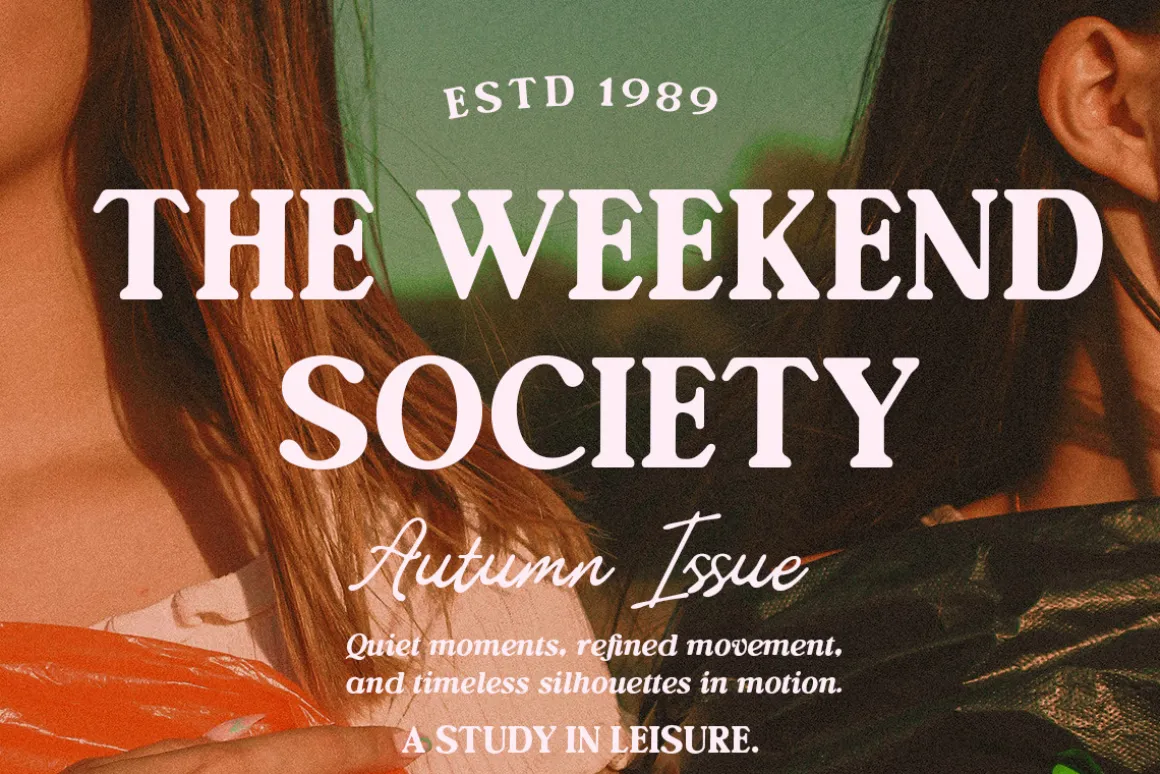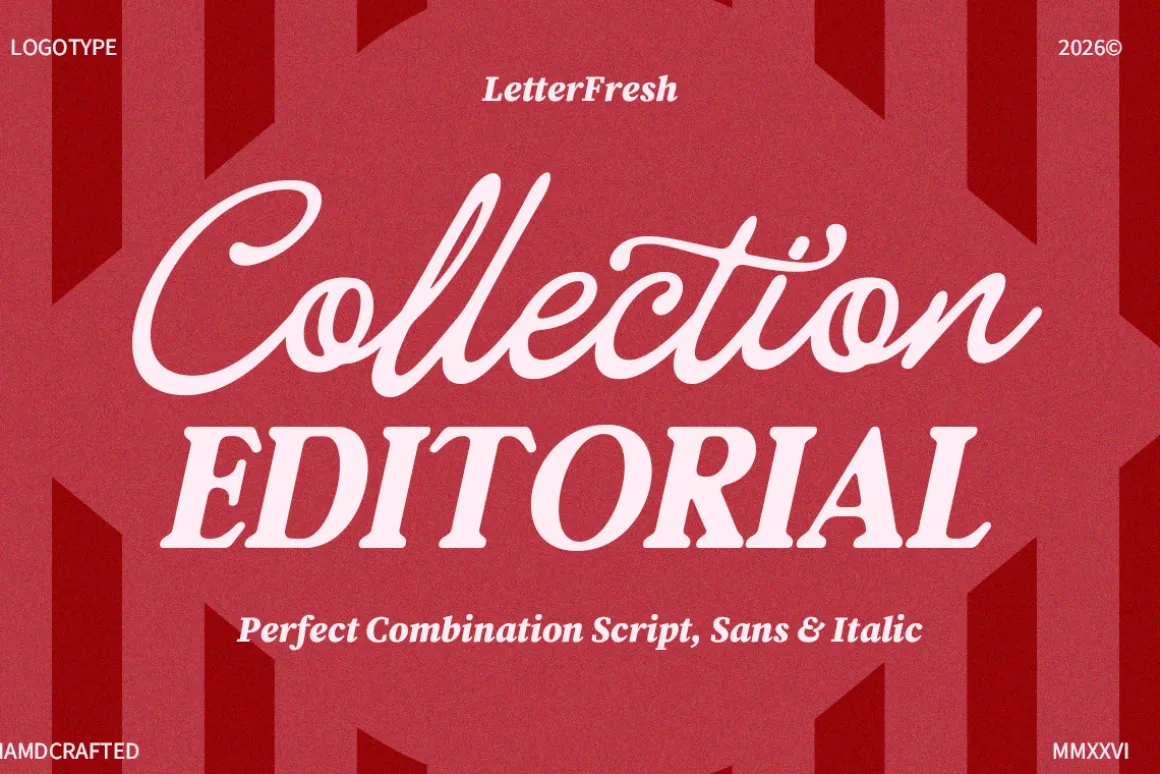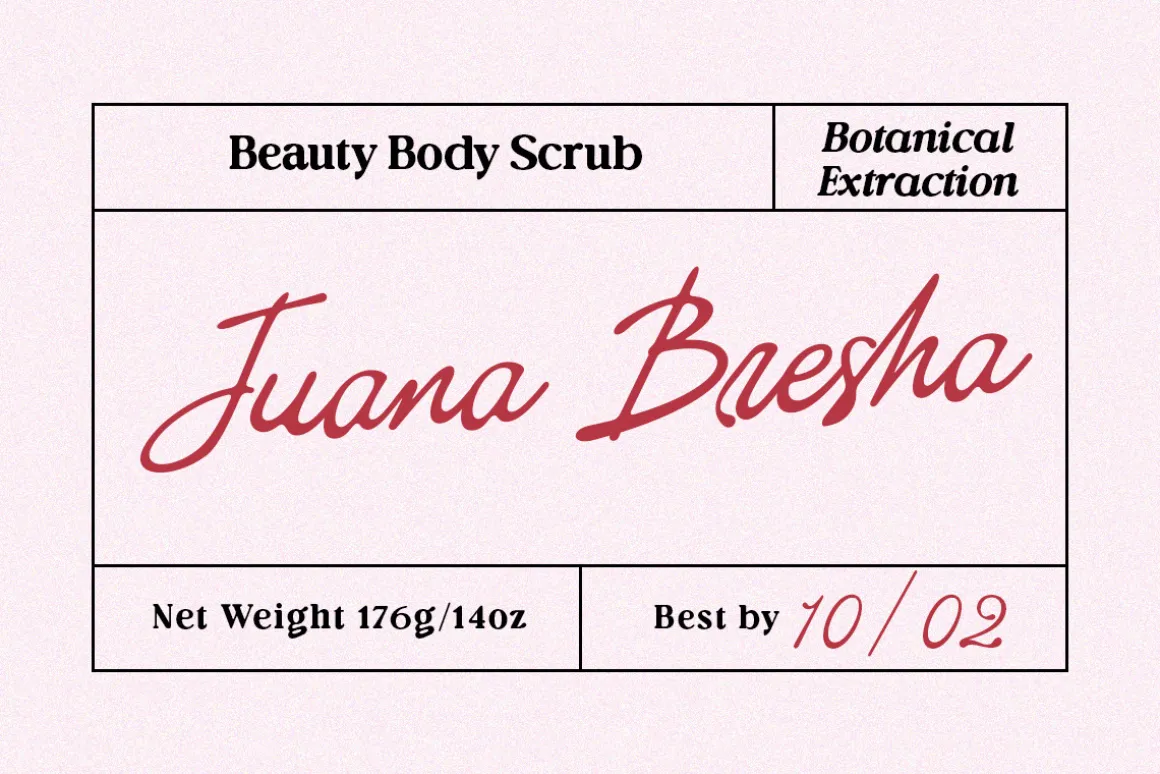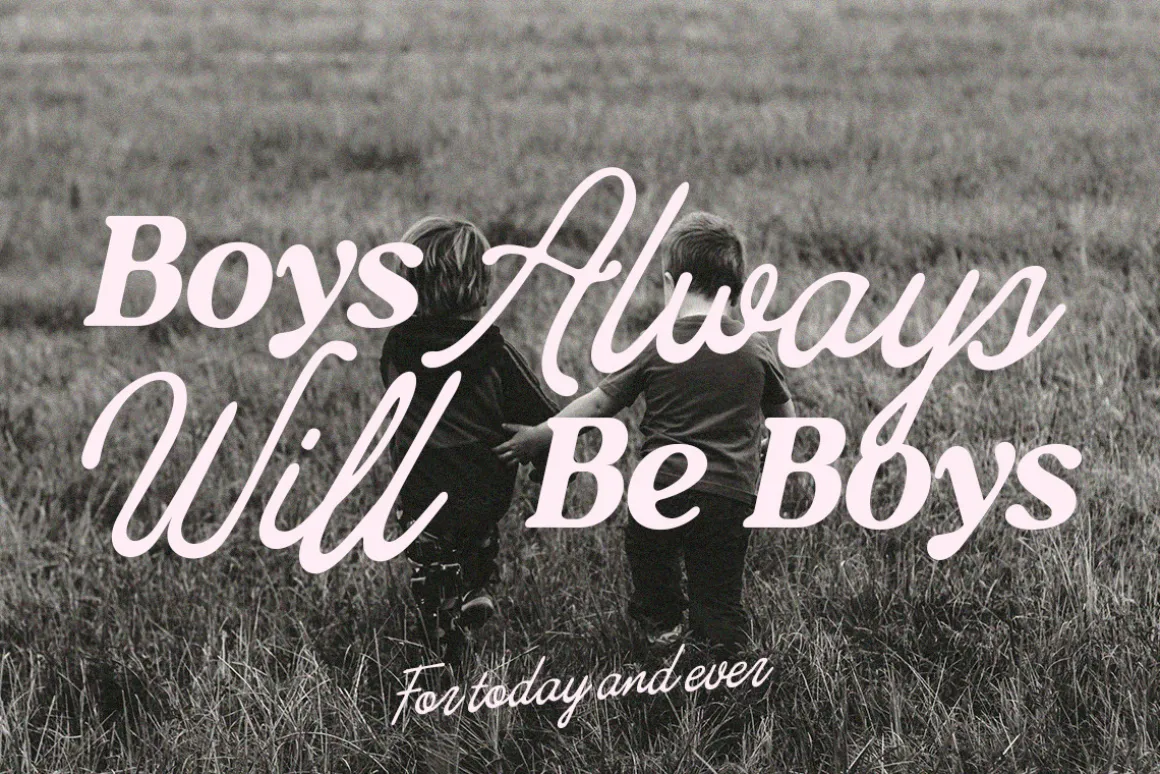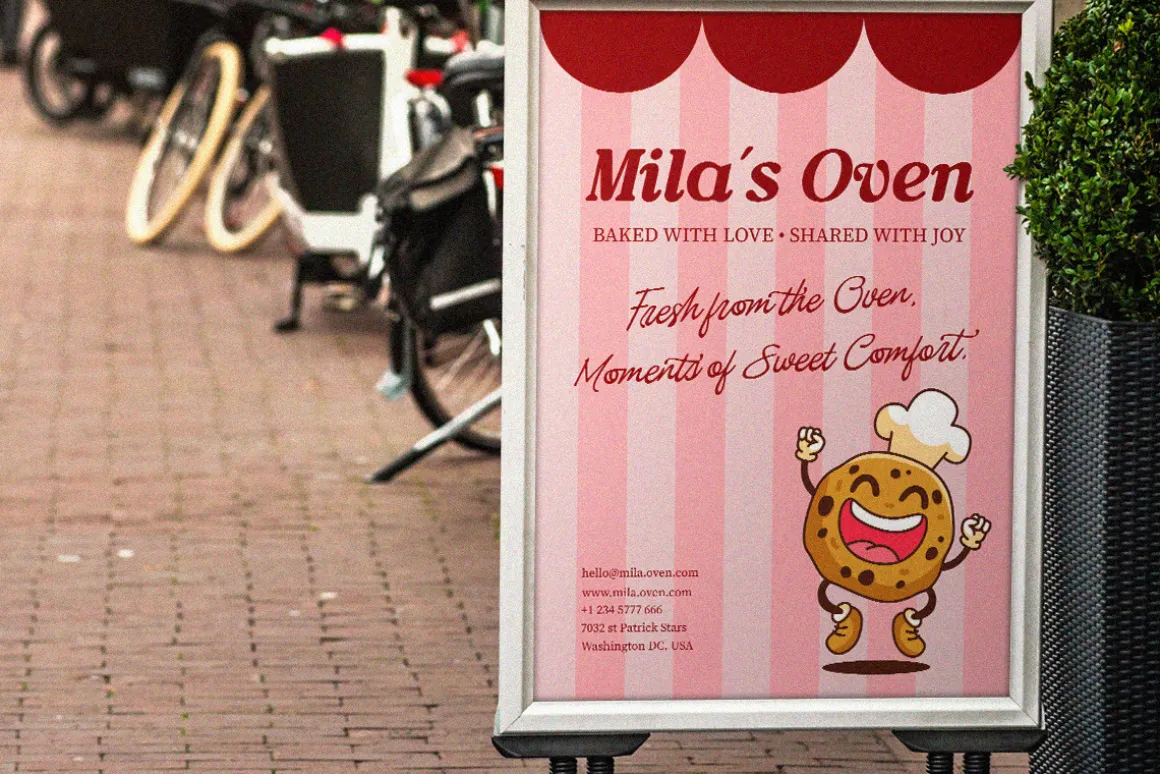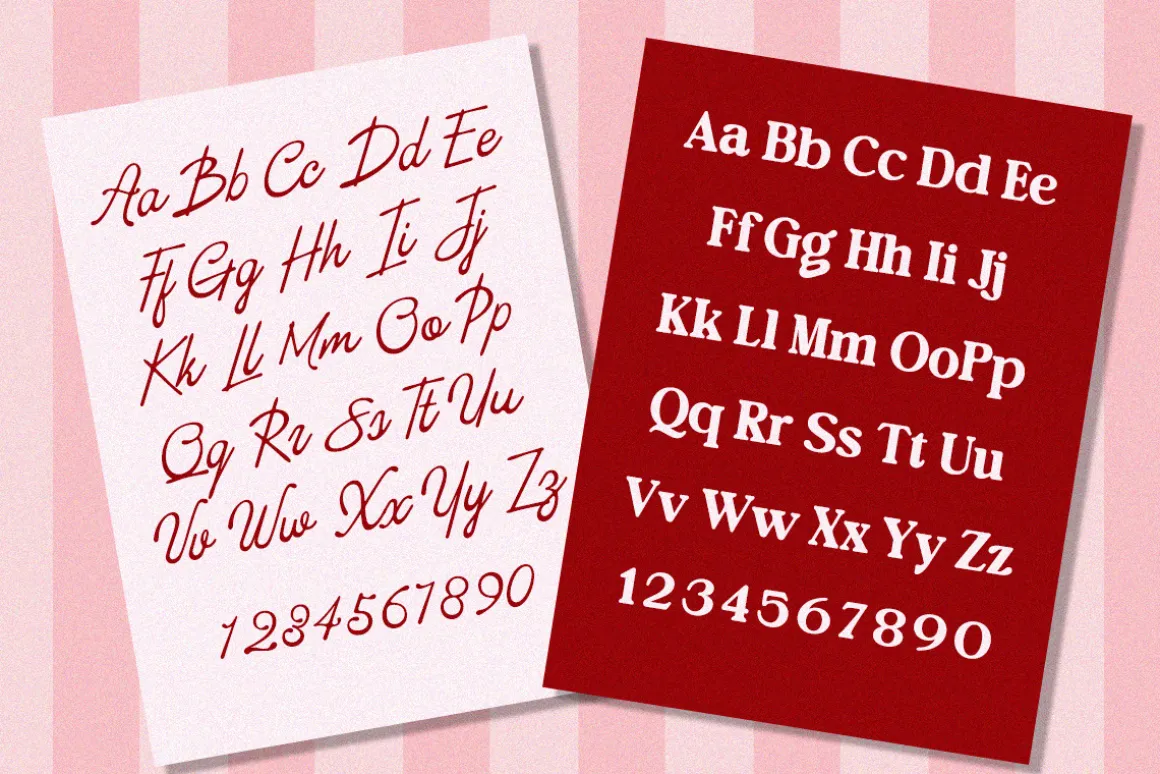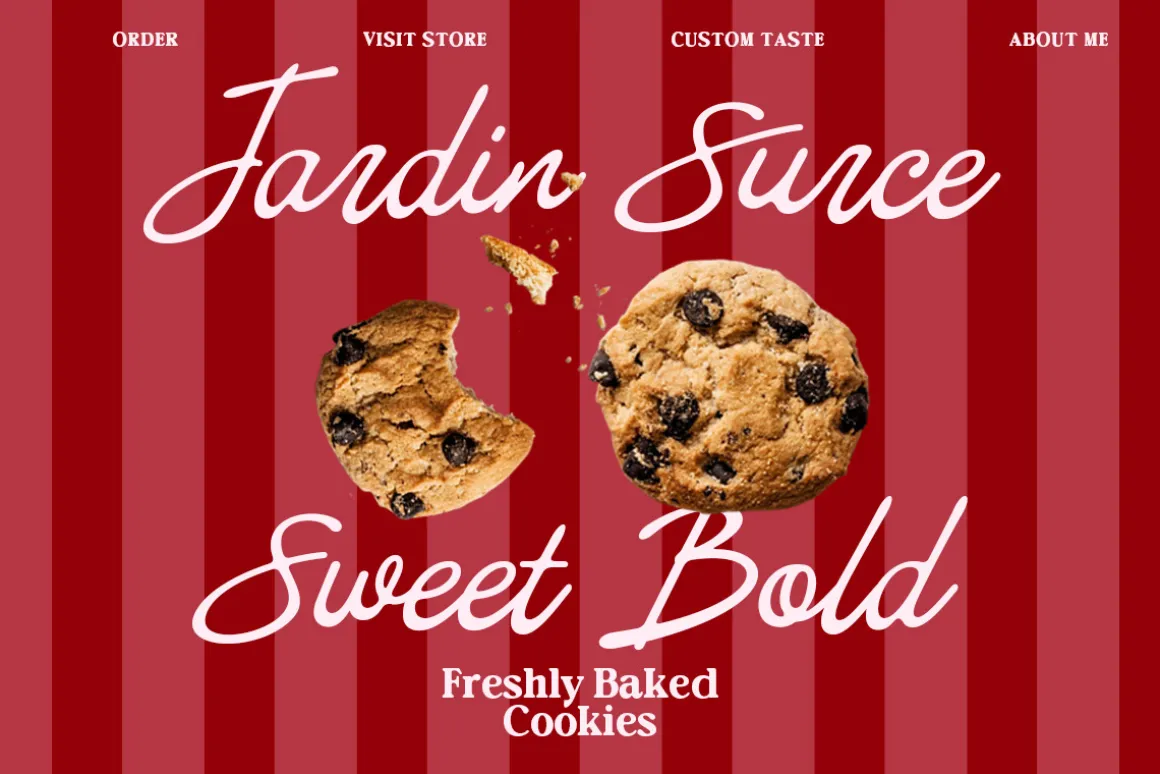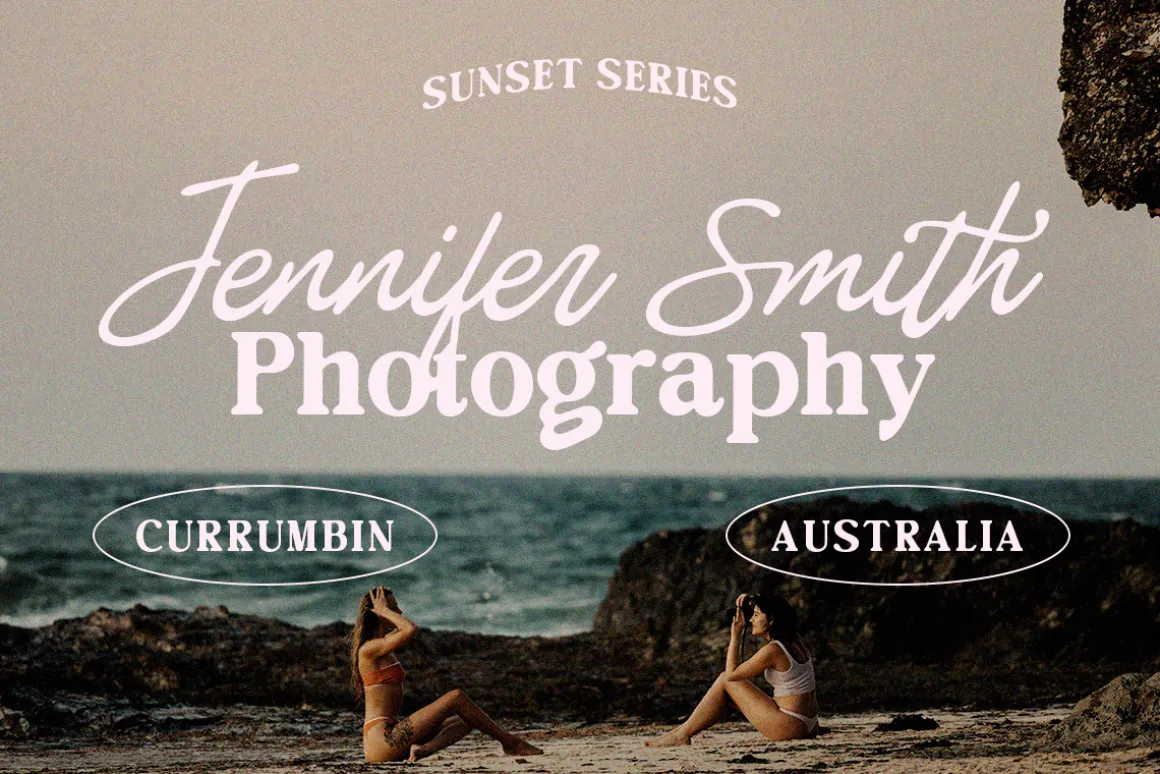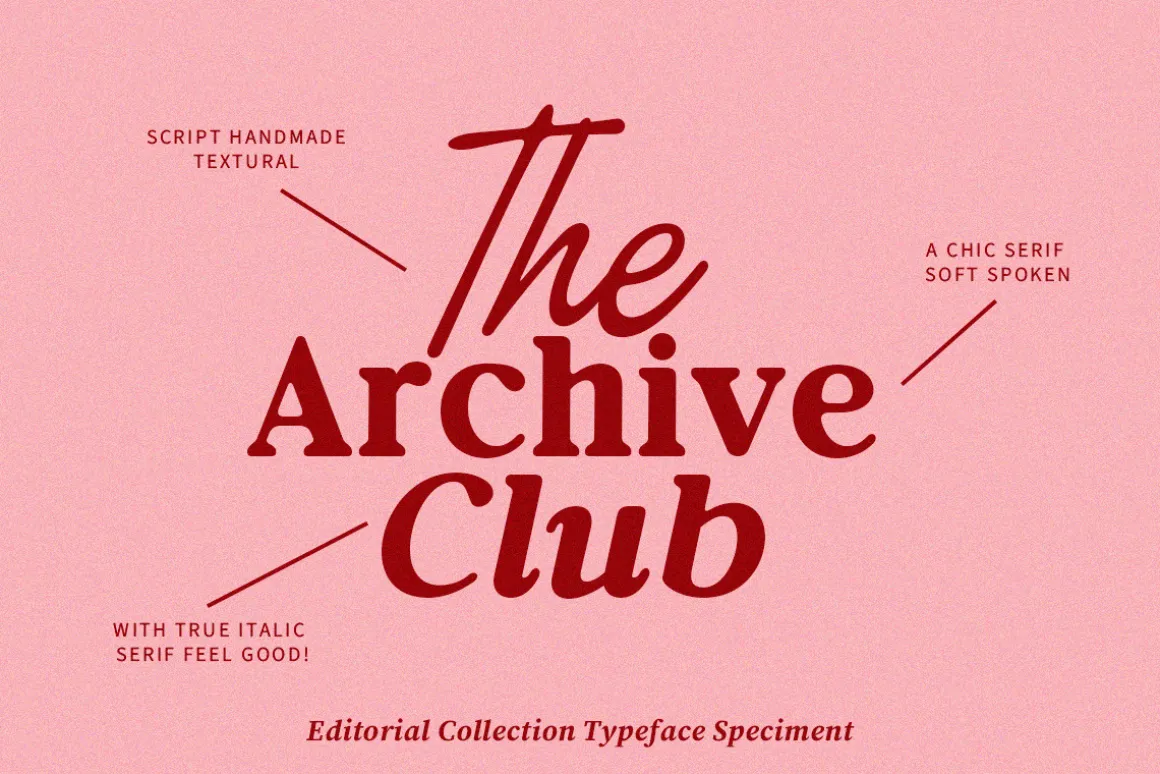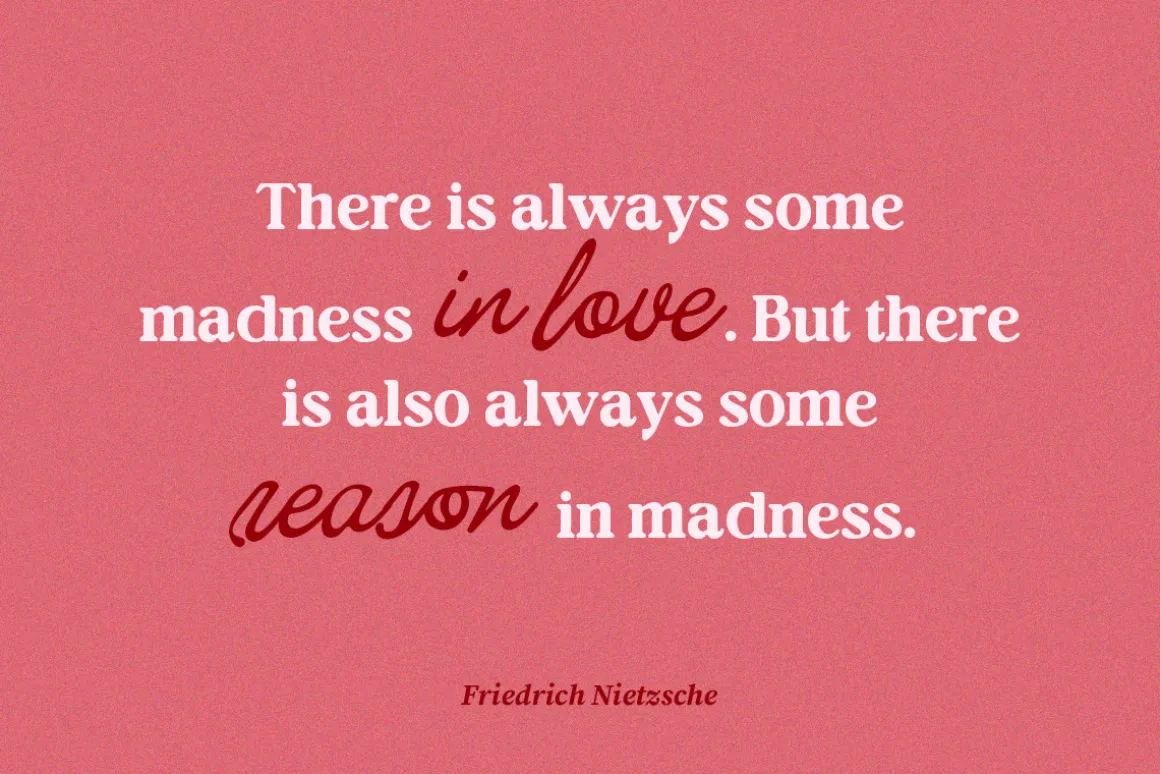
Editorial Collection is a vintage-inspired font duo that artfully combines a refined handwriting style with a bold sans serif style, making it ideal for timeless design projects. It’s perfect for creating distinctive logos, elegant packaging, charming cafe branding, or nostalgic posters.
Editorial Collection captures the warmth of mid-century American style while offering a modern twist. With versatile styles, soft curves, and authentic textures, this font family ensures every word feels handcrafted and full of character, enhancing your branding and editorial designs.